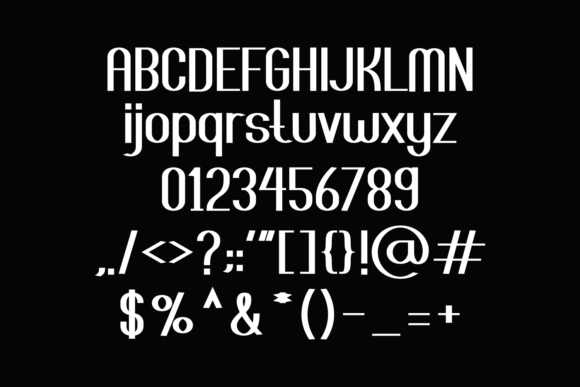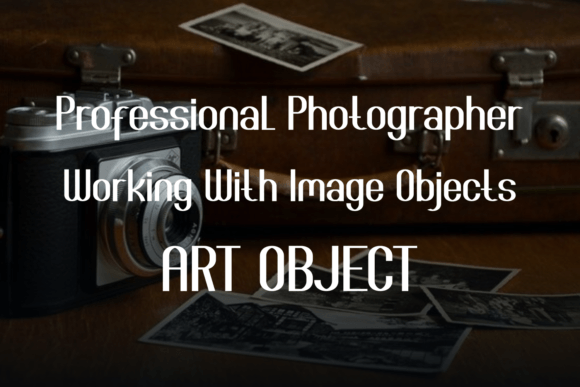
Discover the Unique Charm of Garisa Font: Elevate Your Designs with its Timeless Style
Are you tired of using the same old fonts in your designs? Look no further than Garisa, a cool and unique sans serif font that’s sure to capture your heart. With its incredibly distinct and timeless style, Garisa is the perfect choice for designers and crafters looking to add a touch of elegance and sophistication to their work.
What Makes Garisa Font So Special?
Garisa’s unique charm lies in its clean and minimalist design, which sets it apart from other sans serif fonts. Its sleek lines and curves create a sense of modernity and freshness, making it perfect for a wide range of design projects, from branding and advertising to packaging and digital media.
One of the standout features of Garisa is its versatility. Whether you’re looking to create a bold and eye-catching design or a more subtle and understated one, Garisa can adapt to any style or tone. Its neutral and unobtrusive design makes it an excellent choice for body text, while its elegant and refined appearance makes it perfect for headlines and titles.
The Benefits of Using Garisa Font
So why choose Garisa font for your next design project? Here are just a few benefits you can expect:
- Improved Readability: Garisa’s clear and clean design makes it easy to read, even at small font sizes.
- Enhanced Visual Appeal: Garisa’s unique style adds a touch of sophistication and elegance to any design.
- Versatility: Garisa can be used for a wide range of design projects, from digital media to print materials.
- Timeless Style: Garisa’s classic design ensures that your work will remain stylish and relevant for years to come.
How to Use Garisa Font in Your Designs
Using Garisa font in your designs is easy. Here are a few tips to get you started:
- Pair it with Other Fonts: Garisa pairs well with a variety of other fonts, including serif and script fonts.
- Experiment with Font Sizes: Garisa looks great at a range of font sizes, from small body text to large headlines.
- Play with Color: Garisa’s neutral design makes it easy to use with a variety of colors and textures.
Who Can Benefit from Using Garisa Font?
Garisa font is perfect for a wide range of designers and crafters, including:
- Graphic Designers: Garisa is a great choice for graphic designers looking to add a touch of elegance and sophistication to their work.
- Digital Artists: Garisa’s clean and minimalist design makes it perfect for digital artists looking to create bold and eye-catching designs.
- Crafters: Garisa is a great choice for crafters looking to add a personal touch to their handmade projects.
In conclusion, Garisa font is a unique and versatile sans serif font that’s perfect for designers and crafters looking to add a touch of elegance and sophistication to their work. With its incredibly distinct and timeless style, Garisa is sure to capture your heart and become a staple in your design toolkit. So why wait? Fall in love with Garisa today and start creating spectacular designs that will leave a lasting impression!